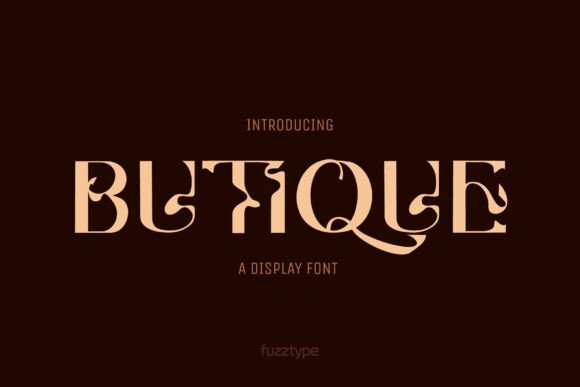
Get Ready to Groove: Introducing the Butique Font
Do you remember that moment when you stumbled upon a vintage poster and instantly felt a rush of creative energy? The way the colors popped, the typography seemed to dance, and the overall vibe transported you to a bygone era? That’s exactly the kind of magic the Butique Font aims to capture.
This display font is a love letter to the psychedelic vibes of the 1960s, with curvy, classy shapes that are sure to make your designs stand out. Whether you’re creating a poster, logotype, editorial layout, magazine, or even merchandise like t-shirts or stickers, the Butique Font is the perfect companion for your creative journey.
Boutique Font Key Features
- Unique Characteristics: Features a unique blend of modern and classic elements, making it suitable for a wide range of design projects.
Butique Font Review
Butique Font is a visually appealing, high-end serif font that truly stands out ✨. The font’s elegant, refined design is perfect for luxury brands, fashion, and high-end products. The subtle flair at the end of each letter adds a touch of sophistication, making it a great choice for creating a premium look.
Some of the key features that make Butique Font shine include:
- High-end aesthetic ✨
- Excellent for luxury brands and high-end products ✨
- Subtle flair at the end of each letter ✨
However, there are a few limitations to consider ⚠️:
- May not be suitable for casual or everyday use ⚠️
- Can be difficult to read in smaller font sizes ⚠️
- May not be as versatile as other fonts ⚠️
Overall, I would give Butique Font 4 out of 5 stars. While it’s a beautiful font with many strengths, its limitations hold it back from being a truly exceptional font. With some careful consideration and planning, however, Butique Font can be a fantastic choice for the right projects.
Tips for Getting the Most Out of Boutique Font
For optimal results, use Boutique Font in conjunction with high-quality images and design elements. Experiment with different font sizes, colors, and styles to create a unique and eye-catching visual identity.
Boutique Font is ideal for use in fashion, beauty, and lifestyle branding, as well as for creating luxury and high-end visual content. It’s also a great choice for creating invitations, menus, and other promotional materials that require a touch of sophistication and elegance.